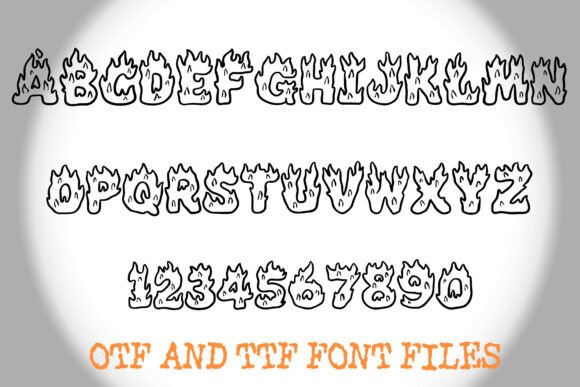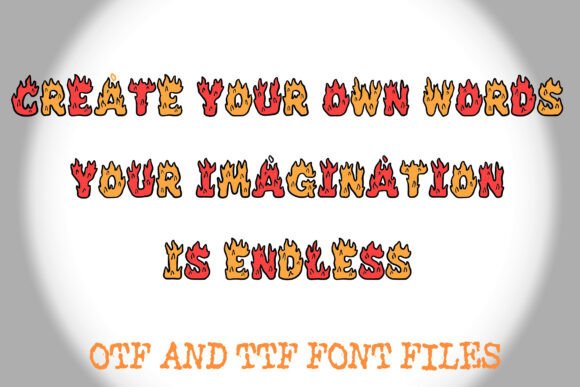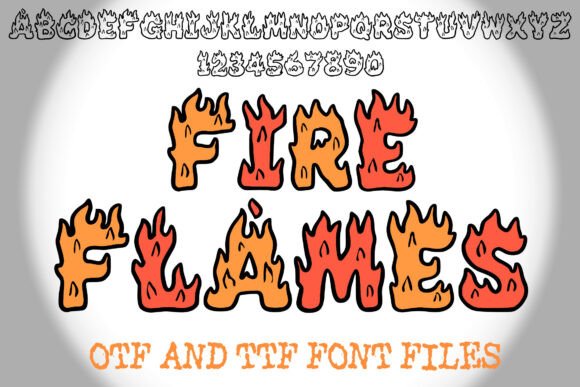
Ignite Your Designs with the Fiery Energy of Fire Flames Font
Are you looking for a font that can add a spark to your designs? Look no further than the Fire Flames Font. This display font is uniquely engulfed in stylized flames, making it perfect for eye-catching posters, edgy branding, and explosive headlines. In this article, we’ll dive into the details of the Fire Flames Font and explore how you can use it to ignite your designs.
What is Fire Flames Font?
Fire Flames Font is a display font that features stylized flames engulfing each letter. The font is designed to evoke the energy and intensity of fire, making it perfect for themes involving heat, action, or adventure. The flames are intricately designed to add a level of detail and texture to each letter, making it stand out from other fonts.
Key Features of Fire Flames Font
• Unique Flame Design: Each letter is uniquely engulfed in stylized flames, giving the font a one-of-a-kind look.
• Display Font: Fire Flames Font is designed as a display font, making it perfect for headlines, titles, and posters.
• Edgy and Bold: The font has an edgy and bold look, making it ideal for designs that require a strong statement.
• Themes: Fire Flames Font is perfect for themes involving fire, heat, action, or adventure.
How to Use Fire Flames Font
Fire Flames Font is a versatile font that can be used in a variety of design projects. Here are some ideas to get you started:
• Posters: Use Fire Flames Font to create eye-catching posters for movies, events, or products.
• Branding: Add an edgy touch to your brand with Fire Flames Font. It’s perfect for companies that want to convey a bold and daring image.
• Headlines: Use Fire Flames Font to create explosive headlines for magazines, newspapers, or online articles.
• Logos: Create a memorable logo with Fire Flames Font. It’s perfect for companies that want to stand out from the crowd.
Tips for Using Fire Flames Font
Here are some tips to keep in mind when using Fire Flames Font:
• Use it sparingly: Fire Flames Font is a bold font, so use it sparingly to avoid overwhelming your design.
• Pair it with a simple font: Pair Fire Flames Font with a simple font to create contrast and make your design more readable.
• Choose the right color: Choose a color that complements the fiery theme of the font. Orange, red, and yellow are great options.
Fire Flames Font is a unique and bold display font that can add a spark to your designs. With its stylized flames engulfing each letter, it’s perfect for themes involving fire, heat, or action-packed visuals. By following the tips outlined in this article, you can ignite your designs with the fiery energy of Fire Flames Font.
Get Ready to Ignite Your Designs